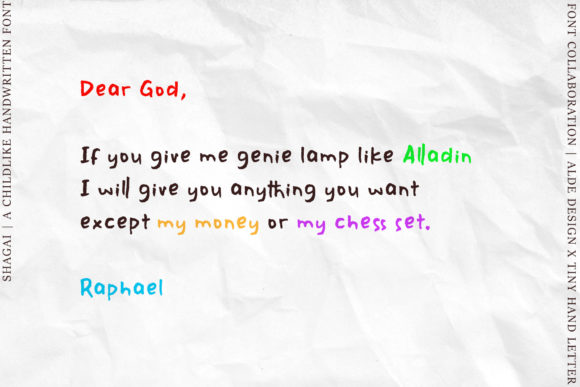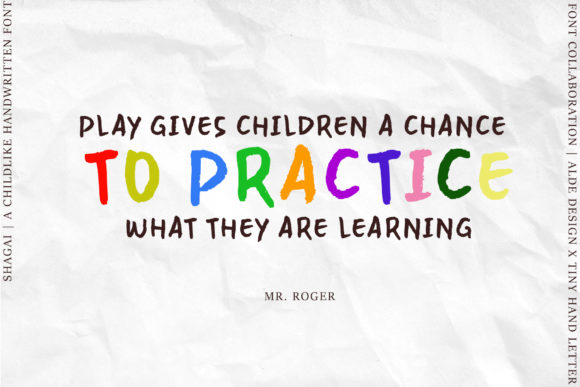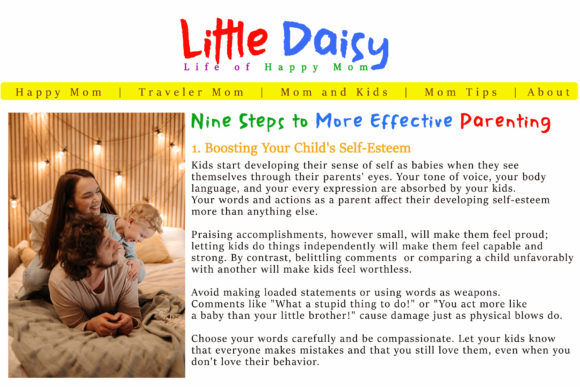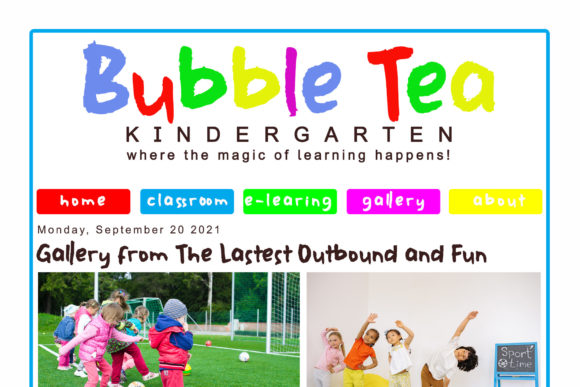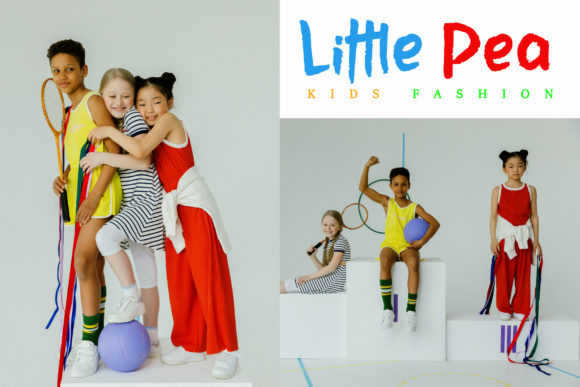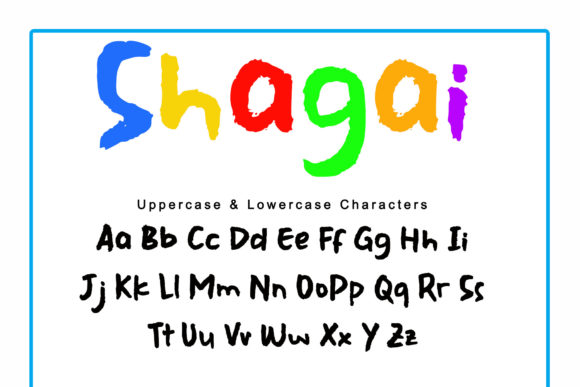
Introduction to Shagai Font
Shagai is a cute and brushed display font.
This font is perfect for children themed designs, especially when combined with bright colors .
Key Features of Shagai Font
Why Choose Shagai Font?